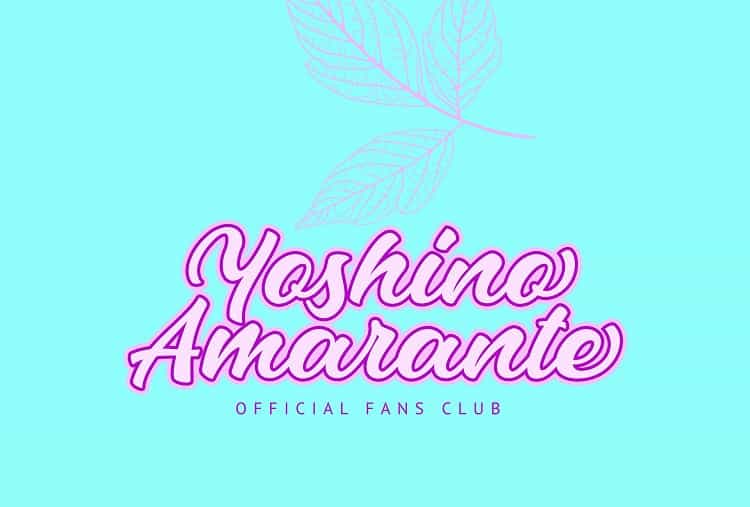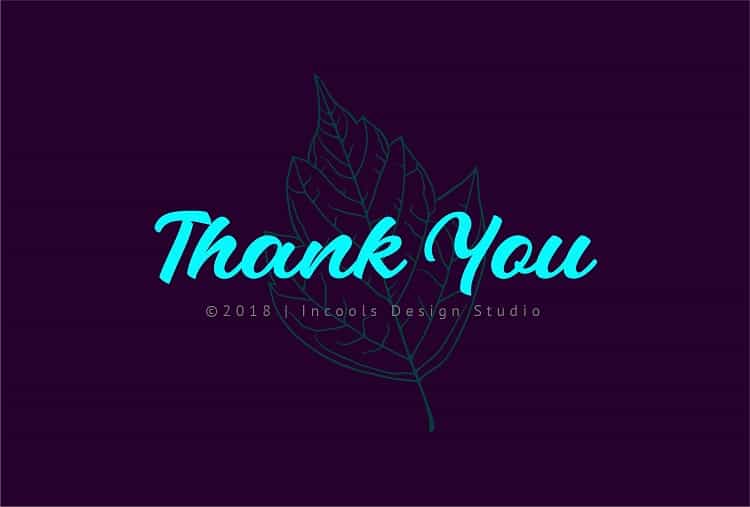
Introducing Vladiviqo Font. A fantastic, neat and smooth finished script which was carefully written with a lot of love. Vladiviqo is offered in Uppercase, Lowercase, Punctuation and all the symbols you will ever need. Of course it has the alternatives for sure.